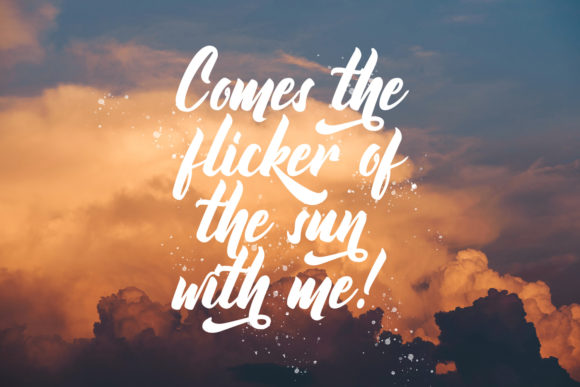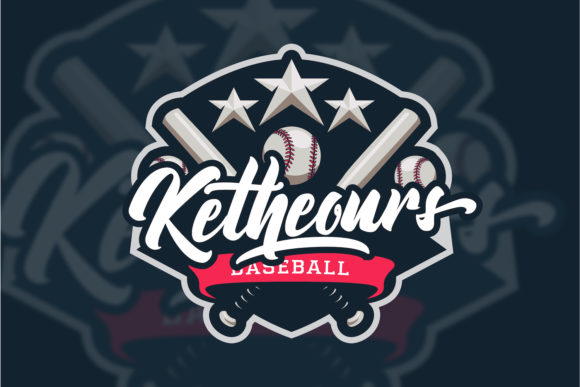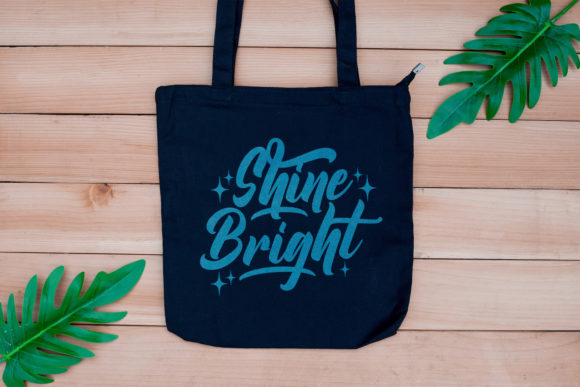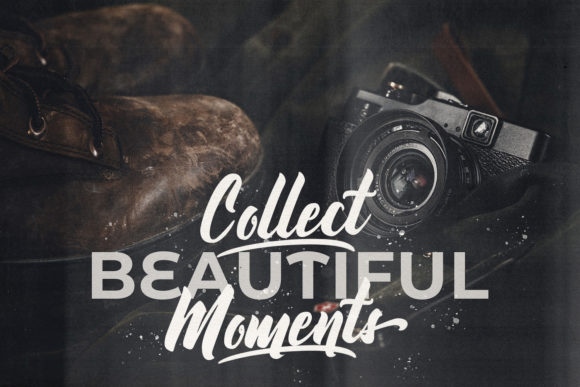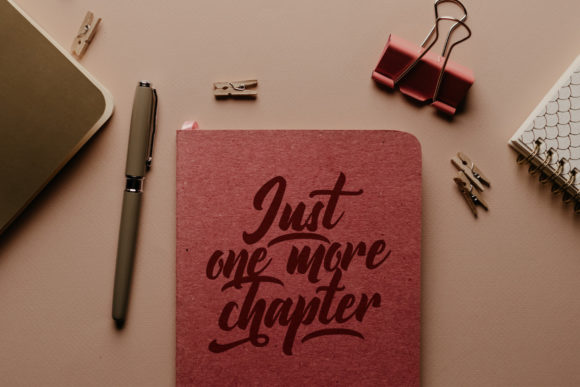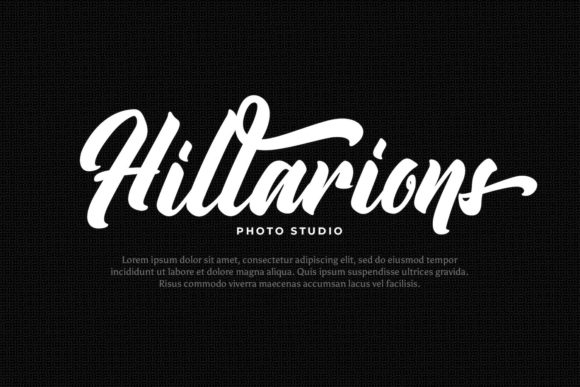
The Hunt for the Perfect Font: Discovering Bethany Kibang
I’ll never forget the frustration of working on a branding project, hours spent scrolling through font libraries, and yet, nothing seemed quite right. The client wanted something unique, something that would make their brand stand out, but not look like it was trying too hard. That’s when I stumbled upon Bethany Kibang, a strong and bold script font that instantly caught my eye. Its curved, rounded letters and unique vintage style were exactly what I needed to bring the project to life.
First Impressions: What I Love About Bethany Kibang
Bethany Kibang is more than just a font; it’s a statement piece for your designs. Here are a few things that I absolutely love about it:
- ✨ Unique Vintage Style: It has this amazing ability to add a touch of nostalgia and class to any design.
- ✅ PUA Encoded: This means accessing all the glyphs and swashes is a breeze, giving you incredible flexibility.
- 💫 Curved and Rounded: The font’s smooth curves make it perfect for designs that need a friendly, approachable feel.
- 🔥 High Versatility: Whether it’s for branding, packaging, or social media graphics, Bethany Kibang fits right in.
A Few Quirks to Consider
No font is perfect, and Bethany Kibang has a few quirks:
- 🤔 Legibility at Small Sizes: While it’s stunning at larger sizes, it can get a bit tricky to read when scaled down. Always test it in context.
- ⚠️ Overuse of Swashes: With great power comes great responsibility! Too many swashes can make your design look cluttered.
The Story Behind Bethany Kibang
While the exact origins of Bethany Kibang might be shrouded in mystery, it’s clear that it was designed with love and a deep understanding of vintage typography. The creator likely drew inspiration from classic scripts and the timeless elegance of hand-lettered signs from the early 20th century. The result is a font that feels both nostalgic and refreshingly modern.
| Is Bethany Kibang suitable for body text? | While it’s primarily designed for headlines and branding, it can be used for short paragraphs. However, its readability at smaller sizes might be limited. |
| Does Bethany Kibang support multiple languages? | As a PUA-encoded font, it offers flexibility, but it’s best to check the specific language support. For complex scripts, further investigation might be needed. |
Bethany Kibang is more than just a font; it’s a tool to elevate your designs and make them truly memorable. Whether you’re a designer, crafter, or hobbyist, adding it to your toolkit can open up new creative possibilities. So, go ahead and experiment with Bethany Kibang—your next design project will thank you!